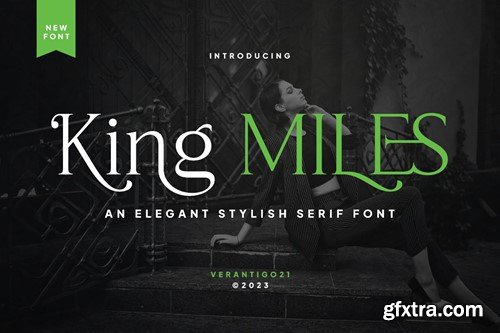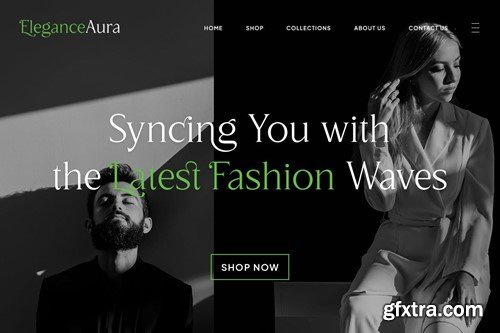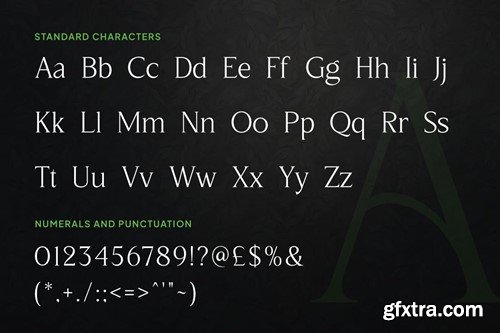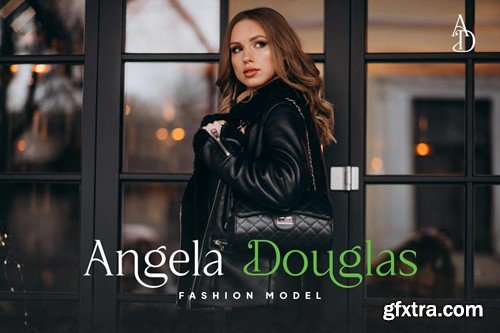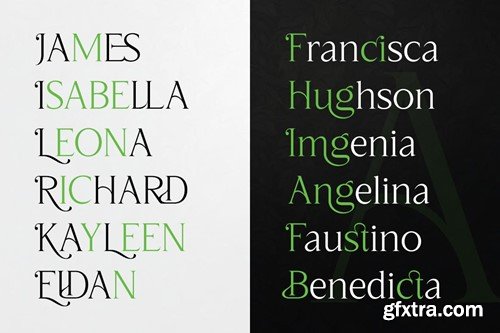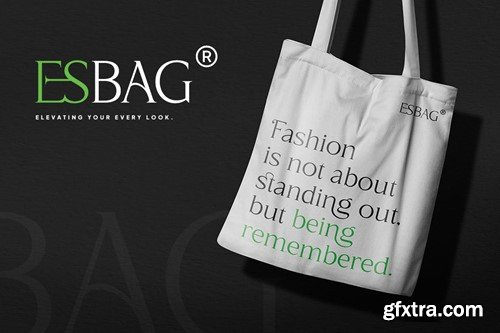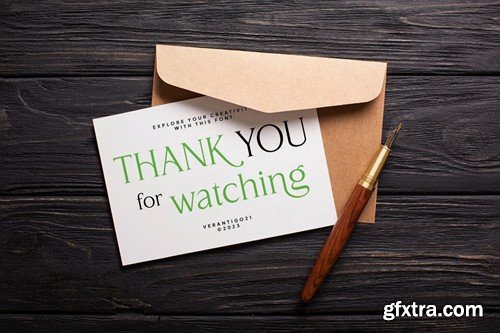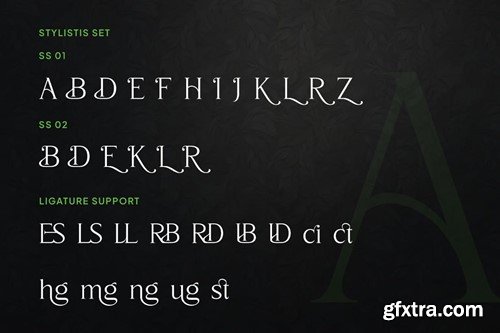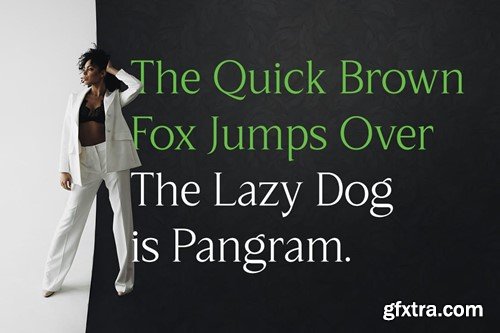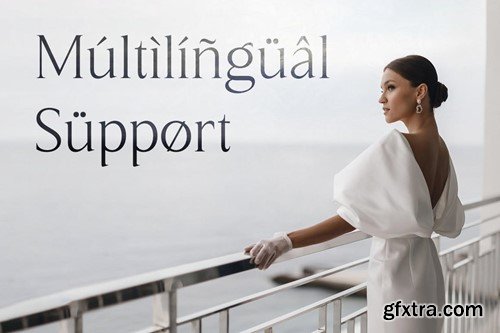
King Miles - Elegant Serif Font
The King Miles is inspired by famous logos. It’s simple, yet classy, and was made with precision and measured. It’s perfect for logos & branding, photography, invitations, watermarks, advertisements, product designs, stationery, wedding designs, labels, product packaging, and much more! What's included : King Miles OTF King Miles TTF King Miles WOFF Numeral and Punctuation International Language Ligature Support Stylistic Set Works on PC & Mac Simple installations Accessible in Adobe Illustrator, Adobe Photoshop, Adobe InDesign, and even works on Microsoft Word. Thank you for your purchase! Hope you enjoy with our font! Best Regards,